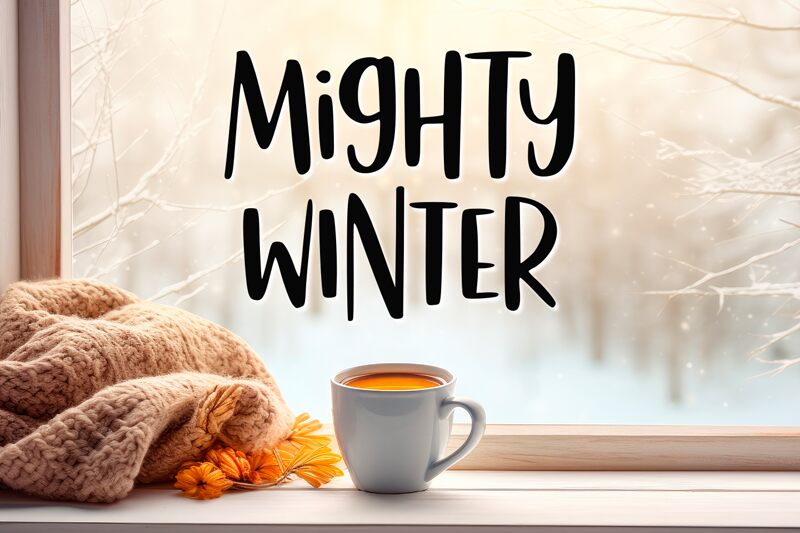
Mighty Winter font by Abo Daniel Studio is a free script font with a natural hand-drawn aesthetic. Its laid-back casual and friendly characters mimic natural handwriting. Both decorative and inviting, it is a stylish modern font that is as relaxed as it is legible, for easy and effortless reading.
This handwritten typeface comes in all English letters as well as numbers. It also includes some special symbols like the ampersand, period, percentage, apostrophe, and more. This font is available for personal projects and is perfect for general classic design work. It can be used in invitation cards, stationary, posters, menus, magazine designs, and labels.